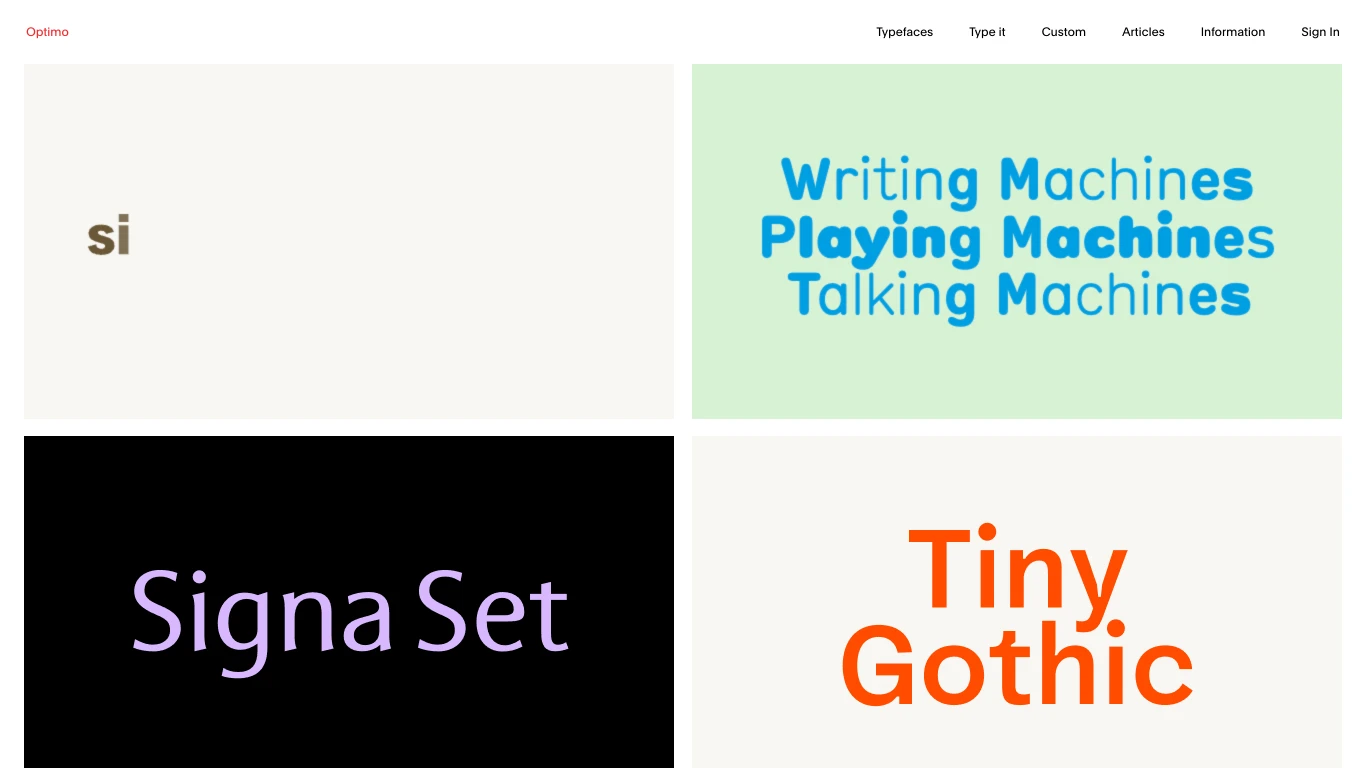
Switzerland
1998
Optimo is a Swiss type foundry founded in 1998 by Gilles Gavillet, Stéphane Delgado, and David Rust after a student project at ECAL. Based in Geneva, it is known for typefaces that balance historical insight with contemporary precision. Its catalogue includes François Rappo’s Theinhardt, a modern grotesque; Plain, noted for optical refinement and versatility; Px Grotesk, designed for digital clarity; and Maximage’s Programme, an experimental mix of calligraphy and computation. Optimo has worked with clients such as The New York Times, Vogue, Squarespace, TAG Heuer, Flodesk, Photo Elysée, and Art Basel. While the foundry itself has not received formal awards, co-founder Gilles Gavillet earned the Jan Tschichold Prize (2006) and the Swiss Grand Award for Design (2012). The foundry emphasises typographic research and education, collaborating with designers and scholars to create innovative, historically grounded typefaces and custom fonts for global clients.